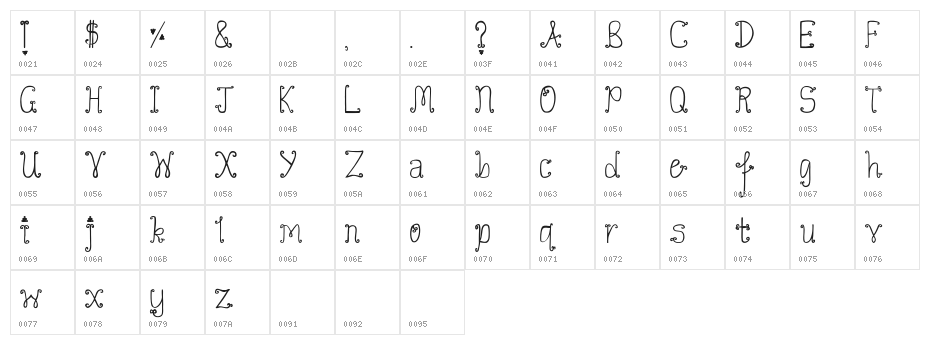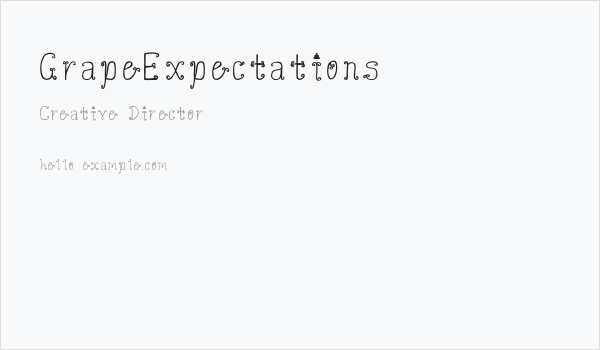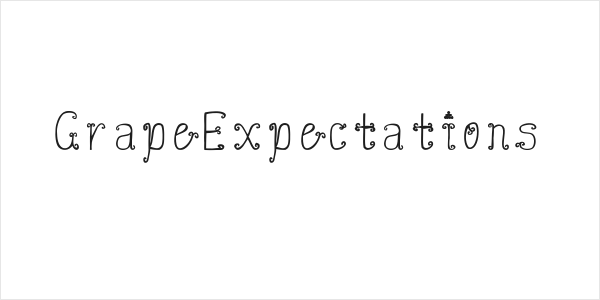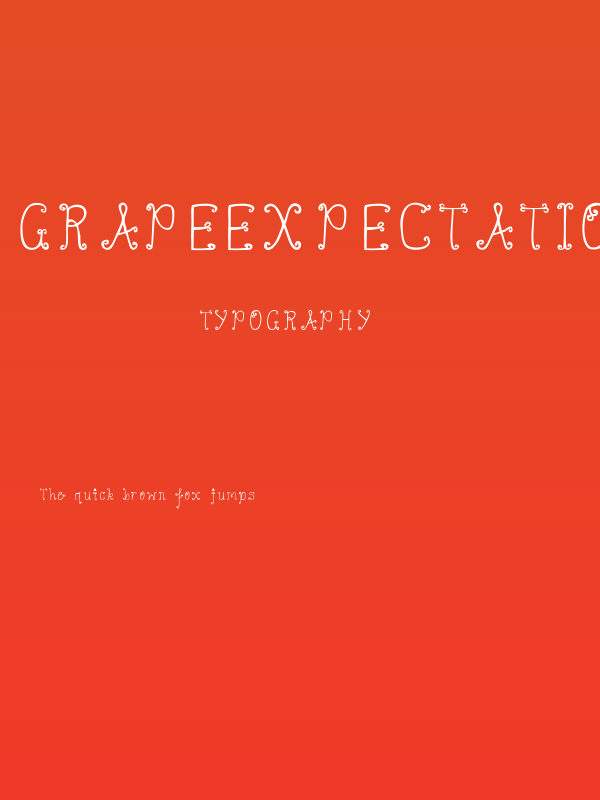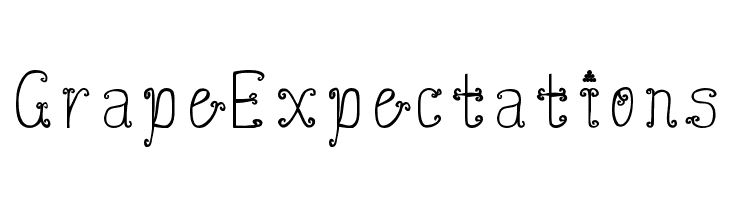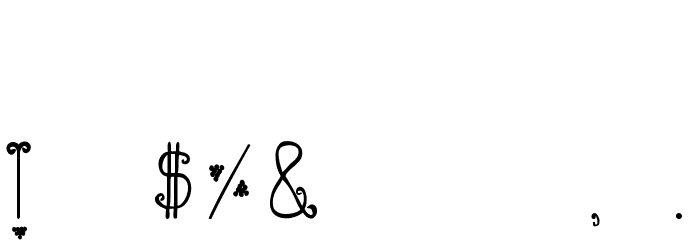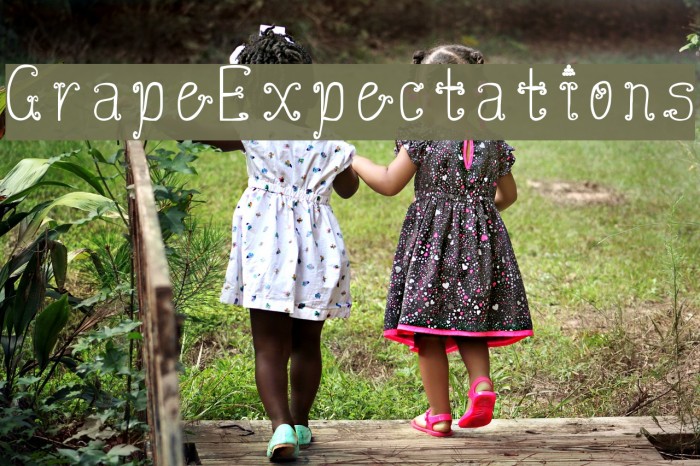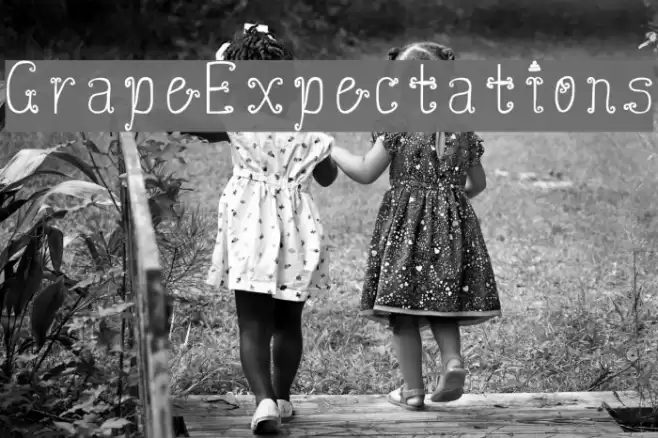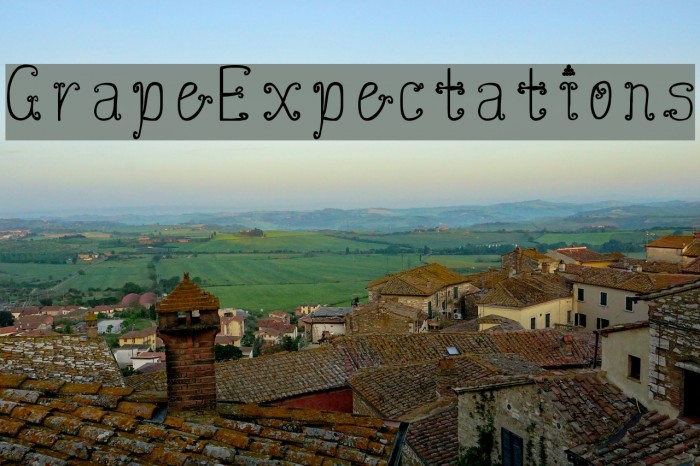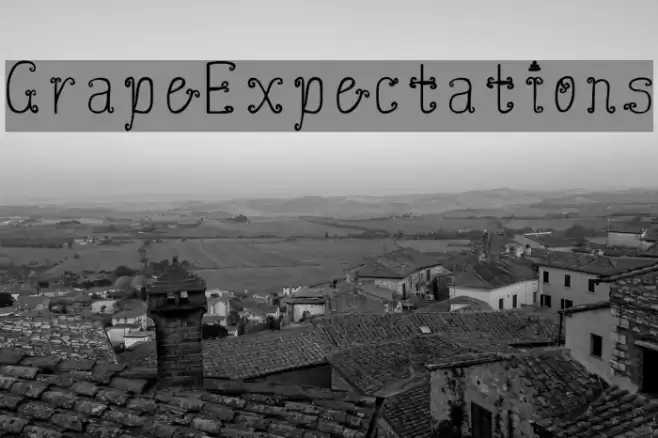
GrapeExpectations Font
GrapeExpectations Description
This whimsical and decorative font features playful curls and swirls at the ends of each character, giving it a unique and artistic flair. The uppercase and lowercase letters maintain a consistent style, with each character exhibiting a charming, hand-drawn quality. The font includes a full set of numerals and a selection of special characters, all designed with the same attention to detail and creativity. Its distinct style makes it ideal for projects that require a touch of elegance and fun, such as invitations, greeting cards, and playful branding materials.
| Use Case | Headlines, Artistic projects, Invitations |
| Proposed Projects | Ideal for invitations, greeting cards, playful branding, and artistic projects. |